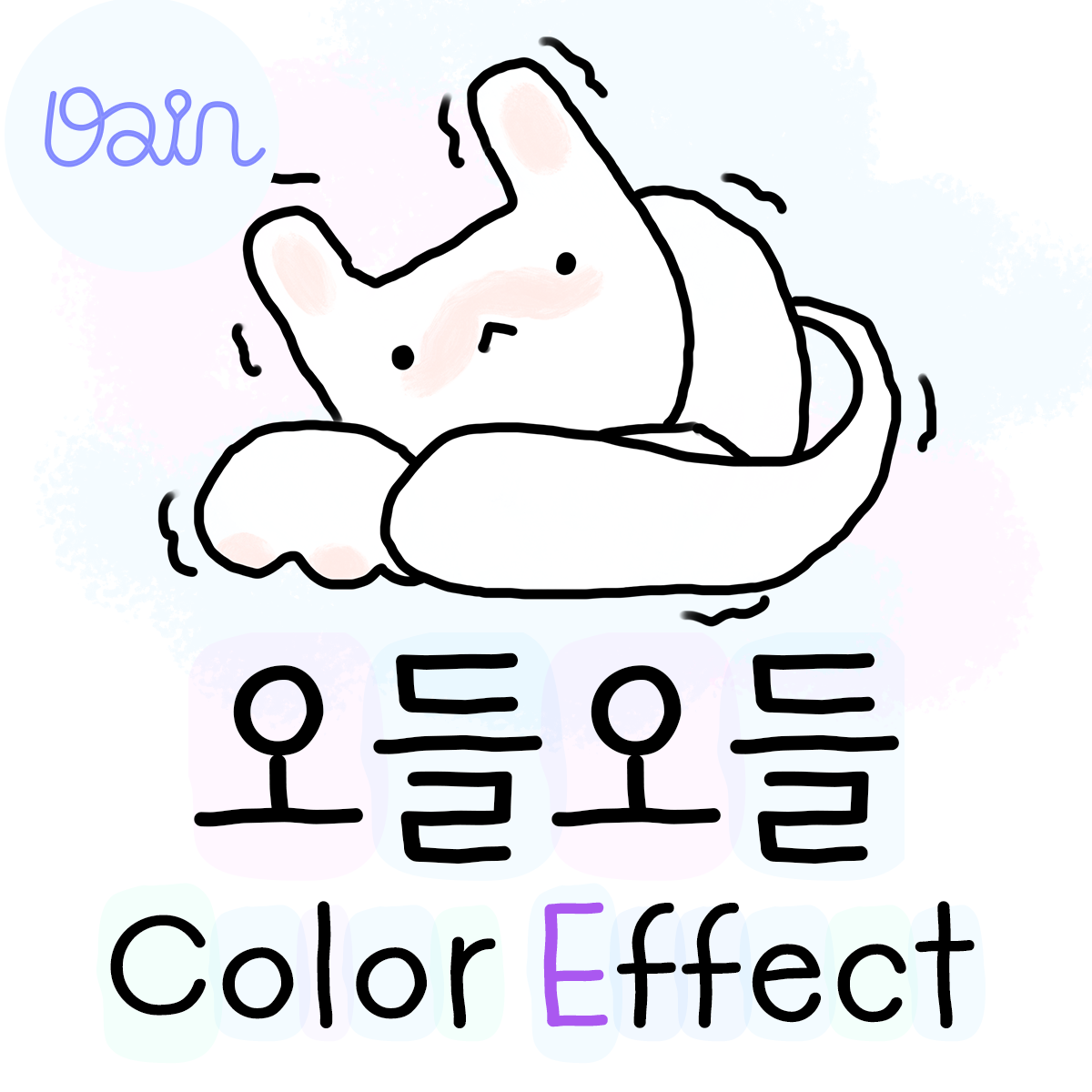
Dain OdleOdleE
About "Dain OdleOdleE"
On a hot day, it's not hot to my smartphone!Seeing the letters trapped in the ice floating and having a cool summer!.
Dain OdleOdleE